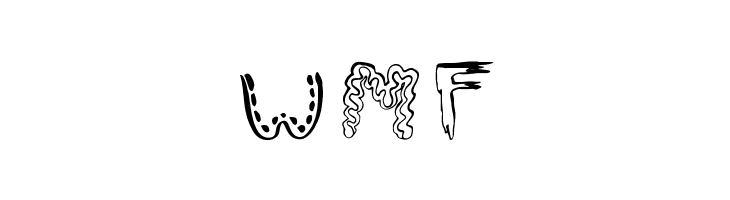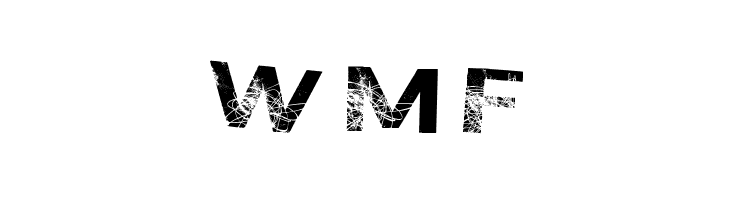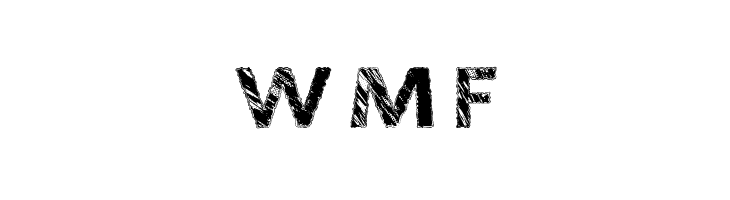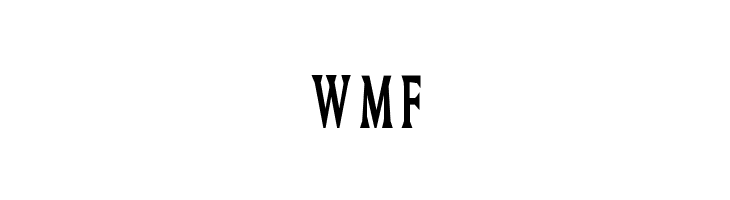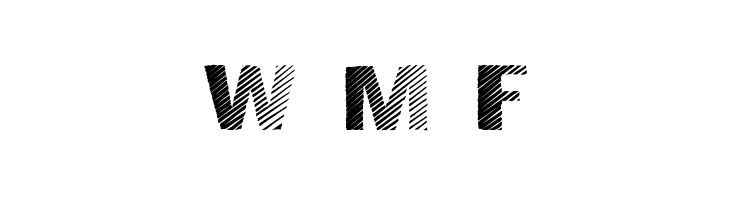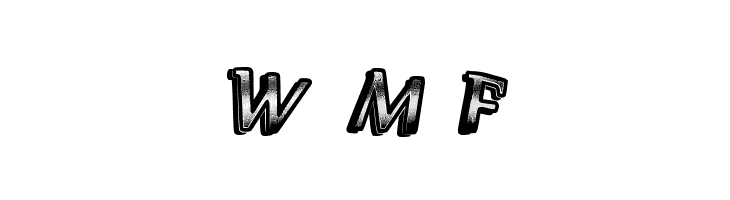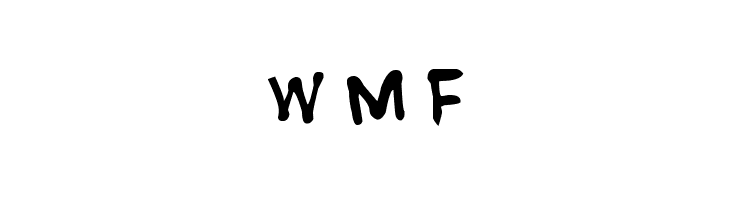
An elegant and flowing script font with ornate details.
A bold, shadowed font with a textured, three-dimensional effect.
A bold, dramatic serif font with sharp, angular features and high contrast.
A playful, hand-drawn font with a casual and friendly appearance.
A bold, textured font with a vintage, hand-drawn appearance.
A bold, textured font with diagonal hatching for a dynamic and modern look.
A playful and eclectic font with unique, artistic letter designs.
A bold, textured font with a 1990s grunge aesthetic.
A bold, distressed font with a textured, cracked appearance.
A bold, decorative font with a three-dimensional, shadowed effect.